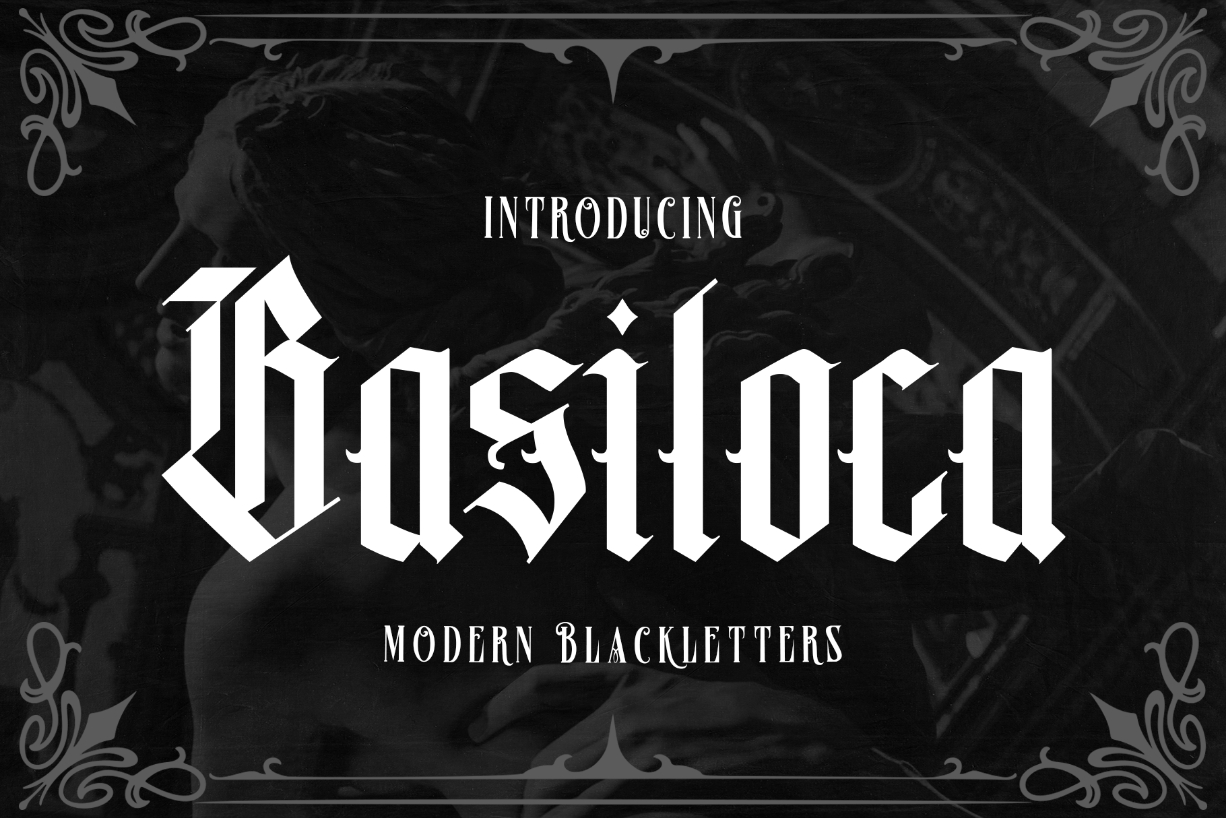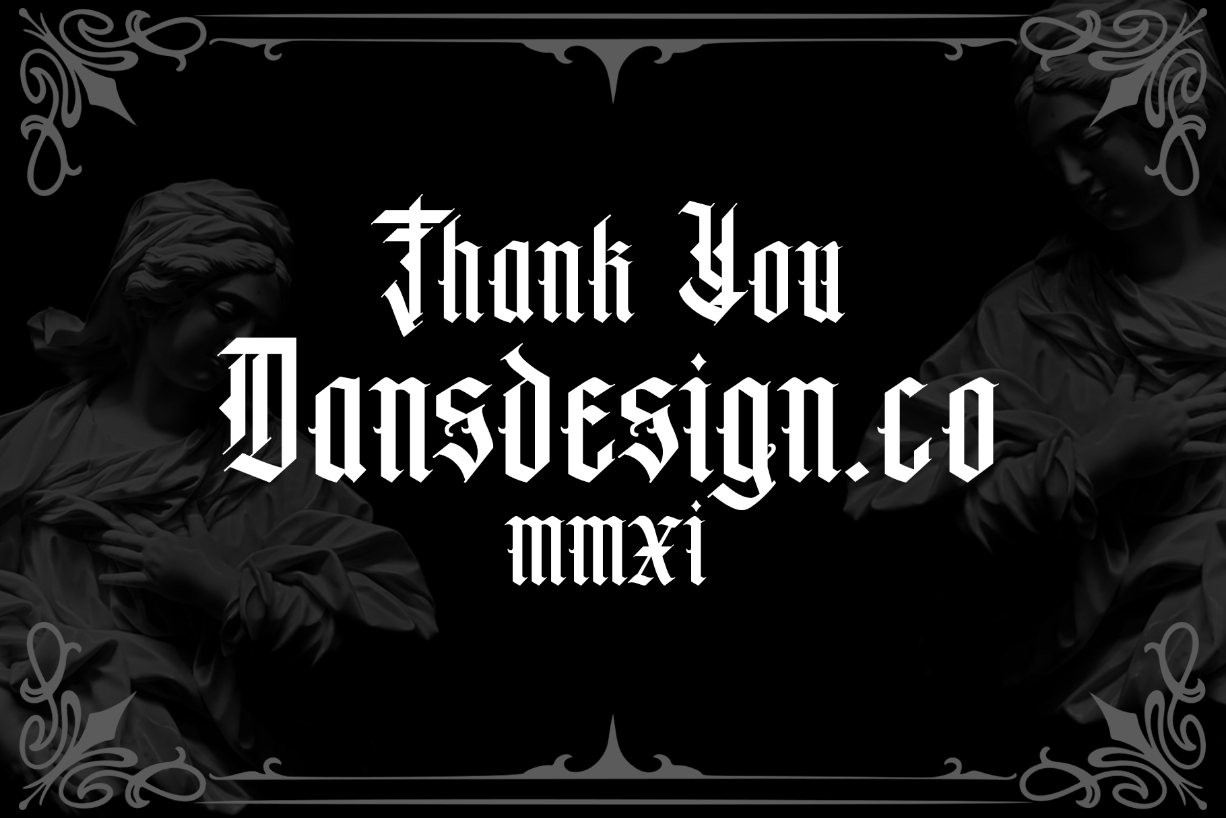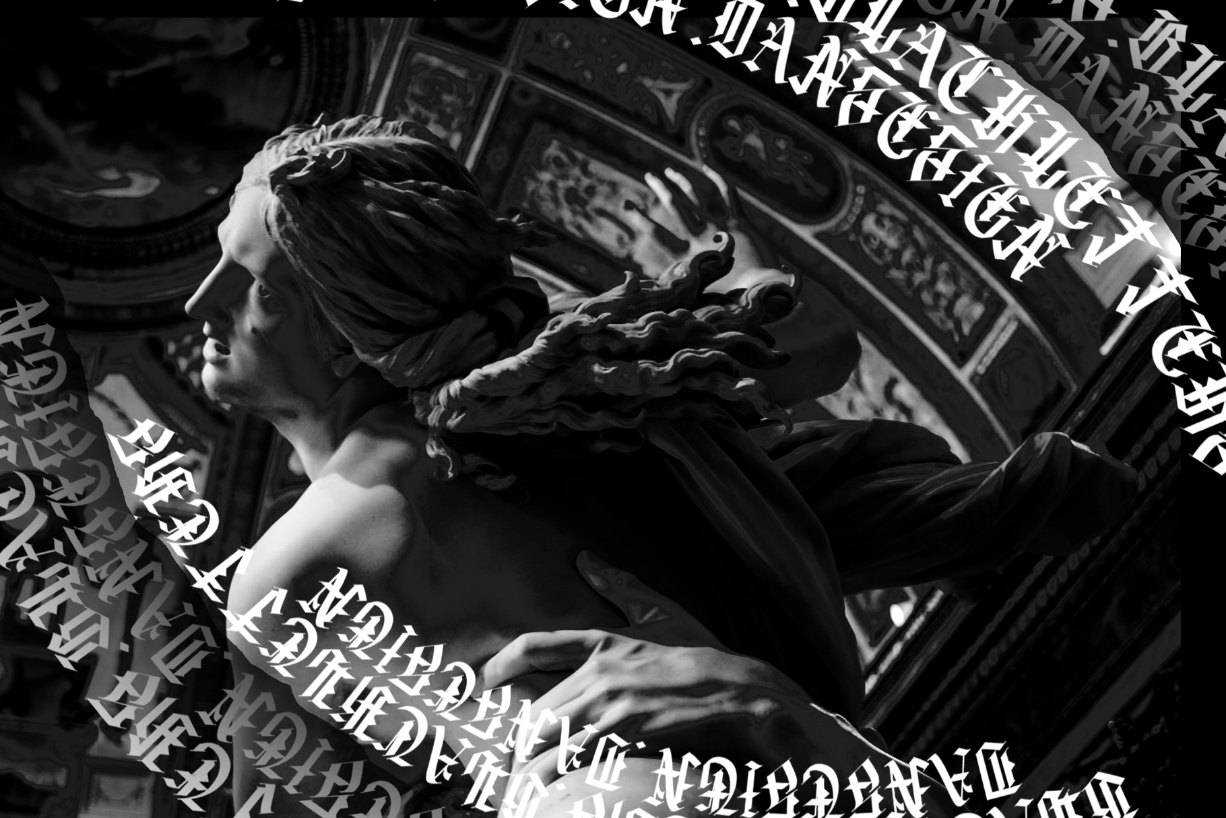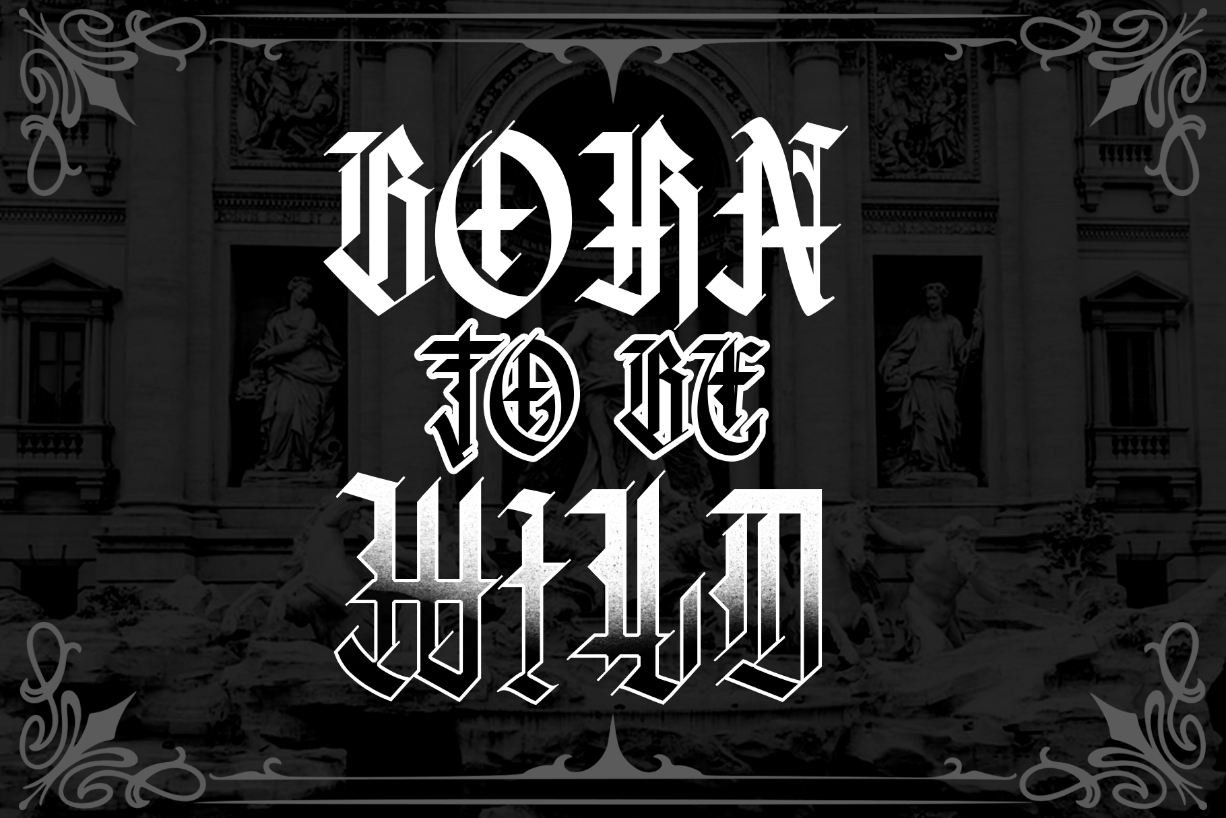
About Basiloca Font
Basiloca is a highly detailed and assertive blackletter font. This original look will appeal to a wide range of crafty ideas, from letterheads and titles, to stationery.